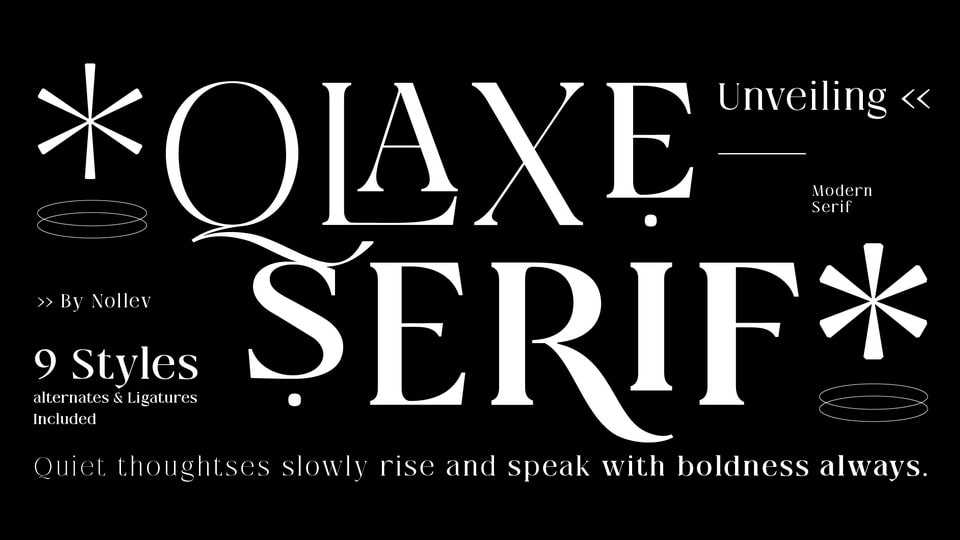
Qlaxe Serif Font › Fontesk – Fonte Grátis
Download Qlaxe Serif font, a modern serif typeface with a clean, confident presence and a hint of luxury. Its sharp details and stylish curves give your design a polished yet expressive voice.
Designer: Akhmad Hidayat